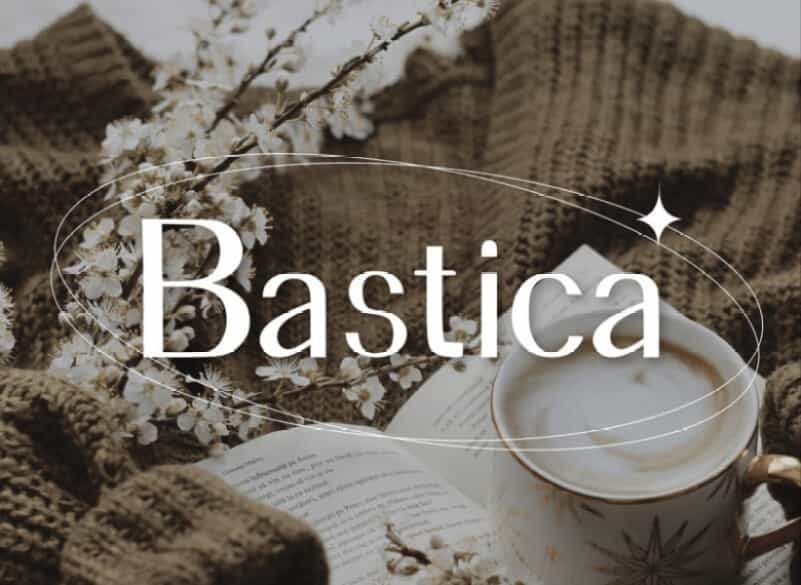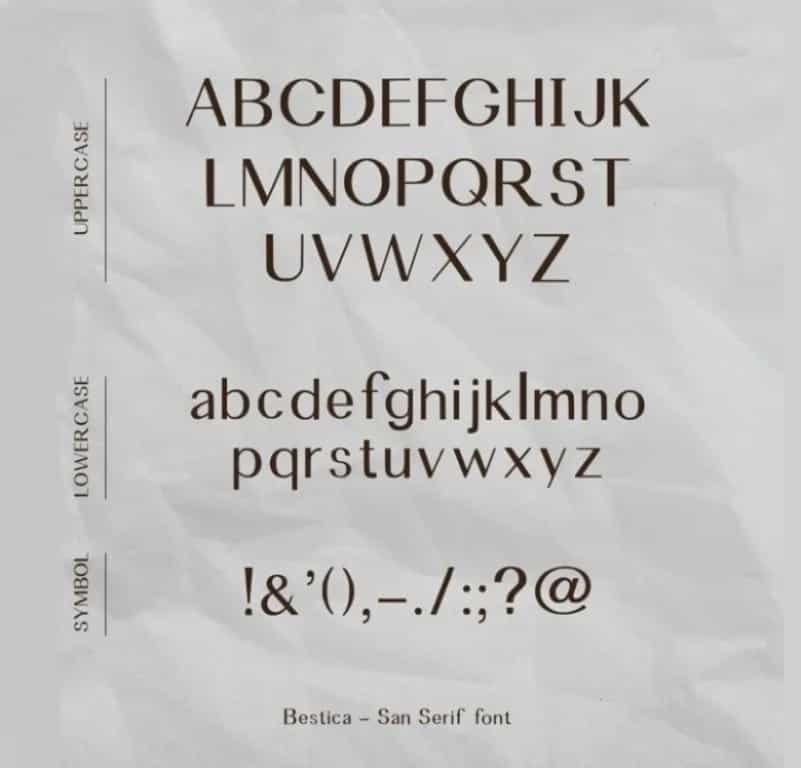
Bestica is an elegant modern sans-serif font designed to stand out in high culture circles. The font can be used on its own as editorial font or header; furthermore, Poria may also serve as logo or title font of cosmetics brands, fashion labels magazines etc.